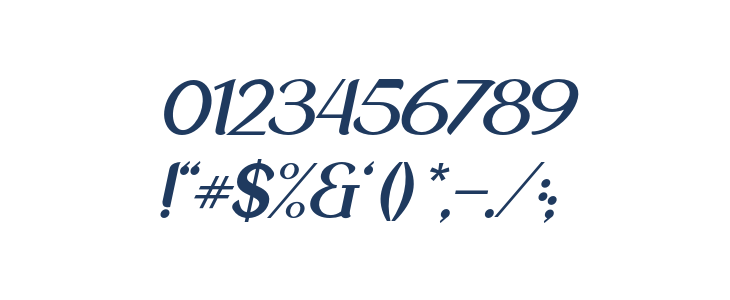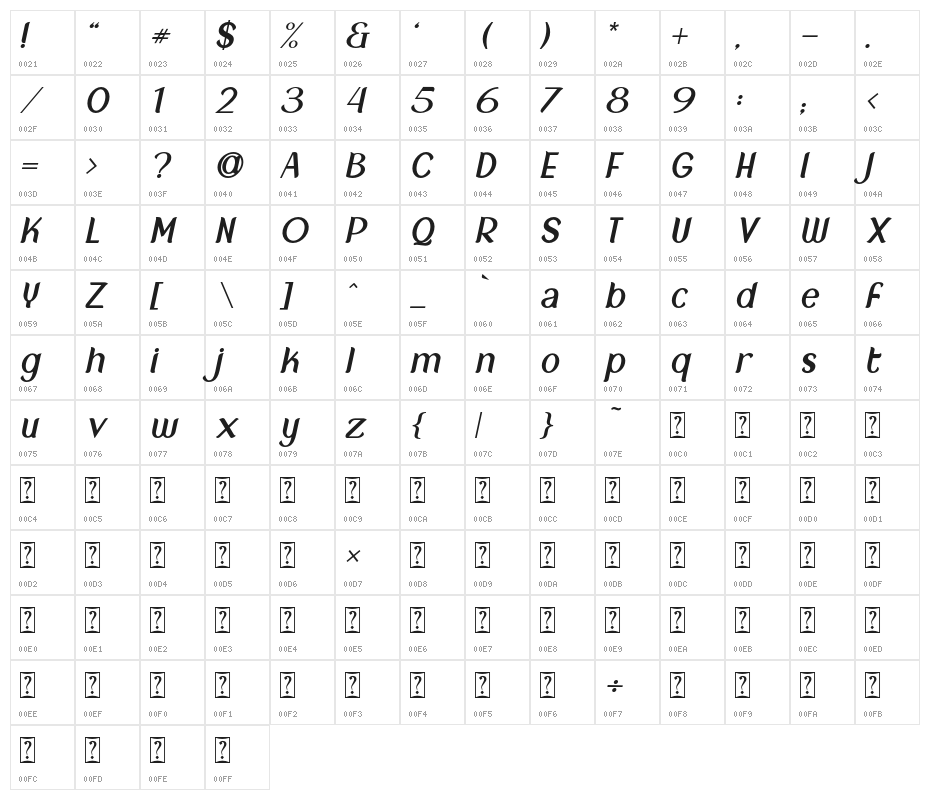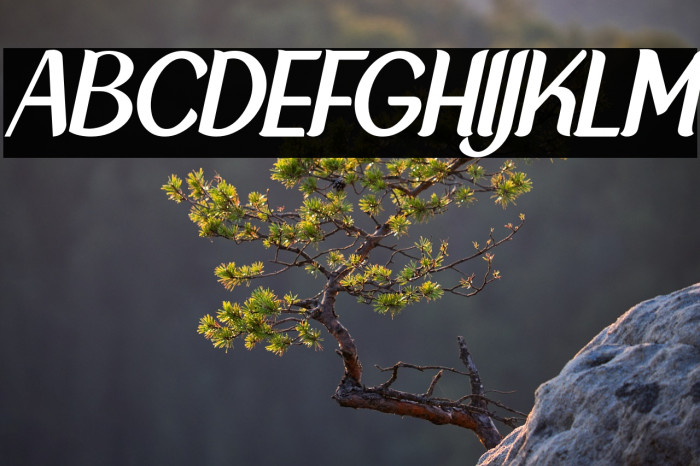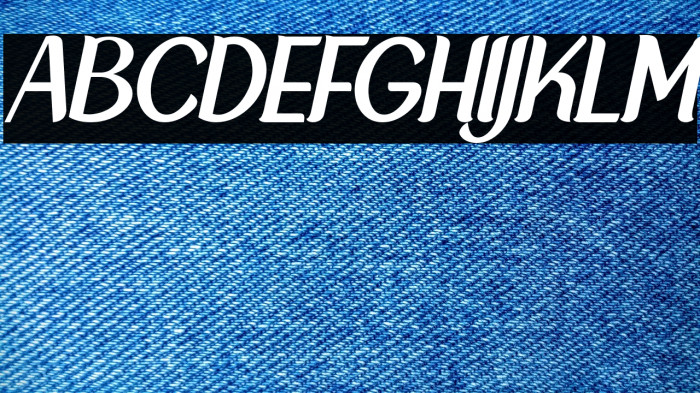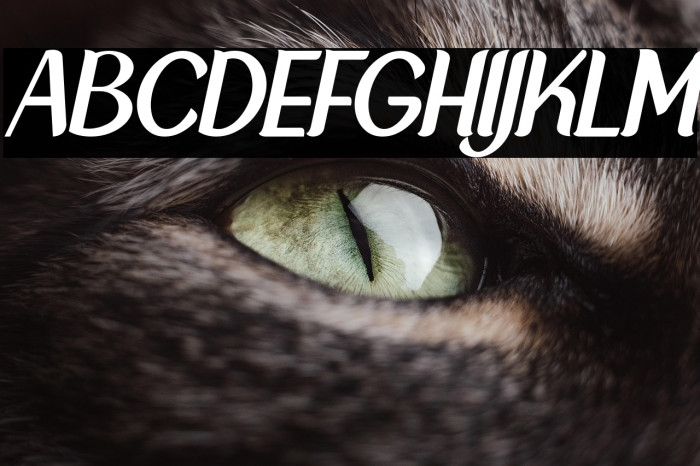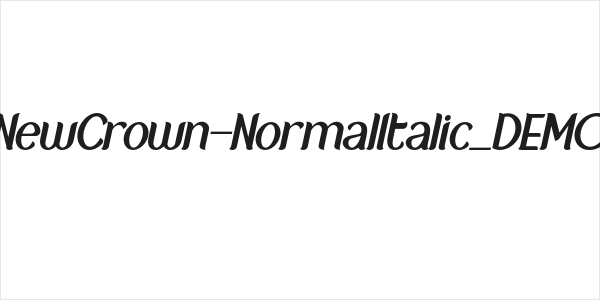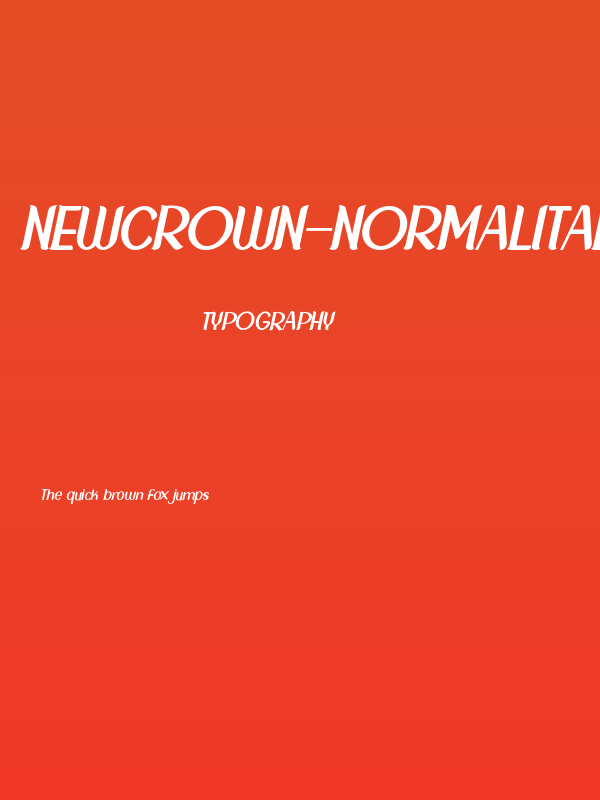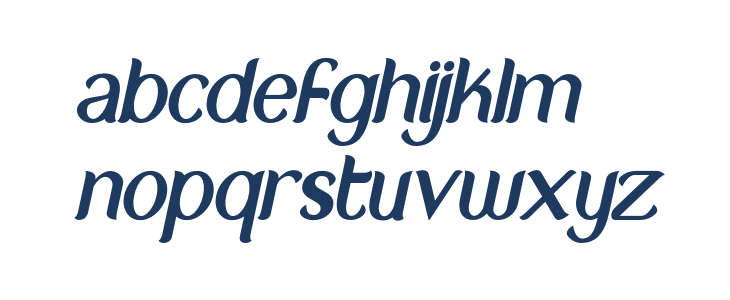
NewCrown-NormalItalic_DEMO Font
NewCrown-NormalItalic_DEMO Description
This font features a dynamic and flowing italic style, characterized by its smooth curves and elegant slant. The uppercase letters are bold and assertive, while the lowercase letters maintain a consistent fluidity, enhancing readability. The numerals are distinct and well-proportioned, complementing the overall design. Special characters are crafted with attention to detail, adding a touch of sophistication. The font's design is suitable for creating an impactful visual presence, making it ideal for various creative applications.
| Proposed Projects | Ideal for branding, advertising, and editorial design projects that require a stylish and modern touch. |